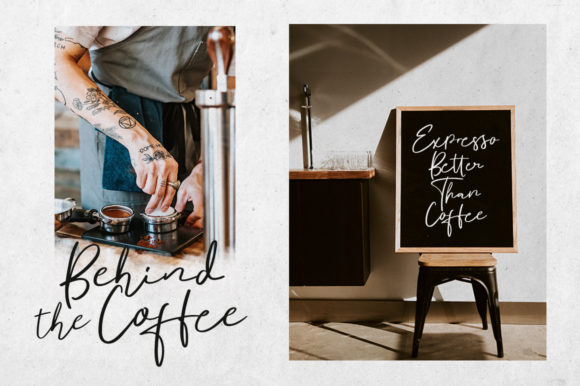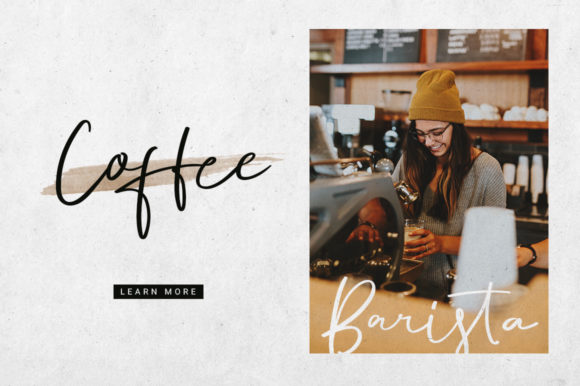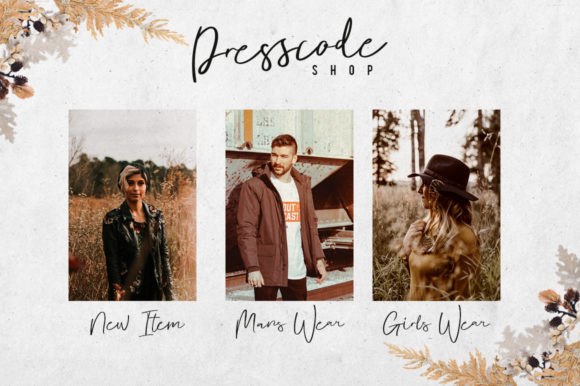
Introduction to Postcart Script Font
As designers, we’ve all been there – staring at a blank canvas, trying to bring a creative project to life. The perfect font can be the key to unlocking that perfect design. And, trust us, we’re excited to introduce you to a game-changer: the Postcart Script Font. This elegant, modern script font is a design resource that will elevate your work and leave a lasting impression.
Whether you’re working on a high-quality logo, branding materials, or a beautiful invitation, Postcart Script Font is an adaptable and versatile choice that will add a touch of sophistication to your design. And the best part? It’s available for free download, making it an accessible resource for designers of all levels.
With its transparent background and seamless integration capabilities, Postcart Script Font is a valuable asset for any creative project. Its classy, elegant look makes it perfect for a wide range of applications, from social media posts to wedding designs. Let’s dive in and explore the world of Postcart Script Font, and discover why it’s a must-have in your design toolkit.
Key Features of Postcart Script Font
- High-quality design resource ideal for creative projects requiring a unique, handwritten touch.
- Features a unique, cursive script style with a mix of elegant and casual elements, making it perfect for creative projects.
- Designed to be versatile and easy to use, making it a great addition to any design project.
Honest Review: Postcart Script Font
I recently came across the Postcart Script Font and was excited to see how it would perform in my next creative project. As a designer, I’m always on the lookout for high-quality design resources that can elevate my work. The Postcart Script Font did not disappoint.
- ✨ Elegant and modern script design that adds a touch of sophistication to any project
- ✨ Transparent background option available, allowing for seamless integration with images and other design elements
- ⚠️ Limited character set, which may not be suitable for longer text blocks or extensive typing
- ⚠️ Not ideal for small font sizes, as it may become difficult to read
Overall, I’m impressed with the Postcart Script Font and would definitely consider using it in future projects. Its unique design and high-quality files make it a valuable addition to any designer’s toolkit.
The Postcart Script Font is a high-quality, free download that can elevate any creative project. With its elegant and sophisticated design, it’s perfect for adding a touch of sophistication to your designs.
Tips for Getting the Most Out of Postcart Script Font
To get the most out of the Postcart Script Font, try combining it with a transparent background to create a beautiful and elegant design. You can also experiment with different font sizes and colors to create a unique look.
Common Use Cases for Postcart Script Font
The Postcart Script Font is perfect for a variety of designs, including wedding invitations, birthday cards, and business logos. It’s also great for creating quotes, headings, and titles for your designs.